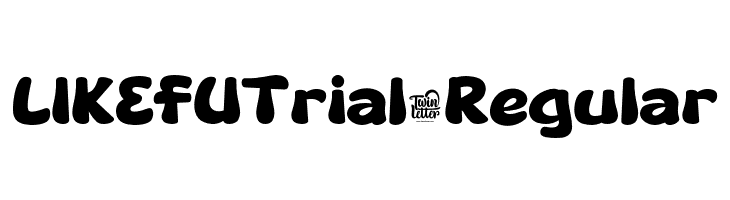
A playful, bold font with rounded, hand-drawn letterforms.
A playful, bold, and rounded hand-drawn font with a whimsical feel.
A bold, rounded font with a playful and friendly style.
A playful, bold font with rounded, bubbly characters ideal for creative projects.